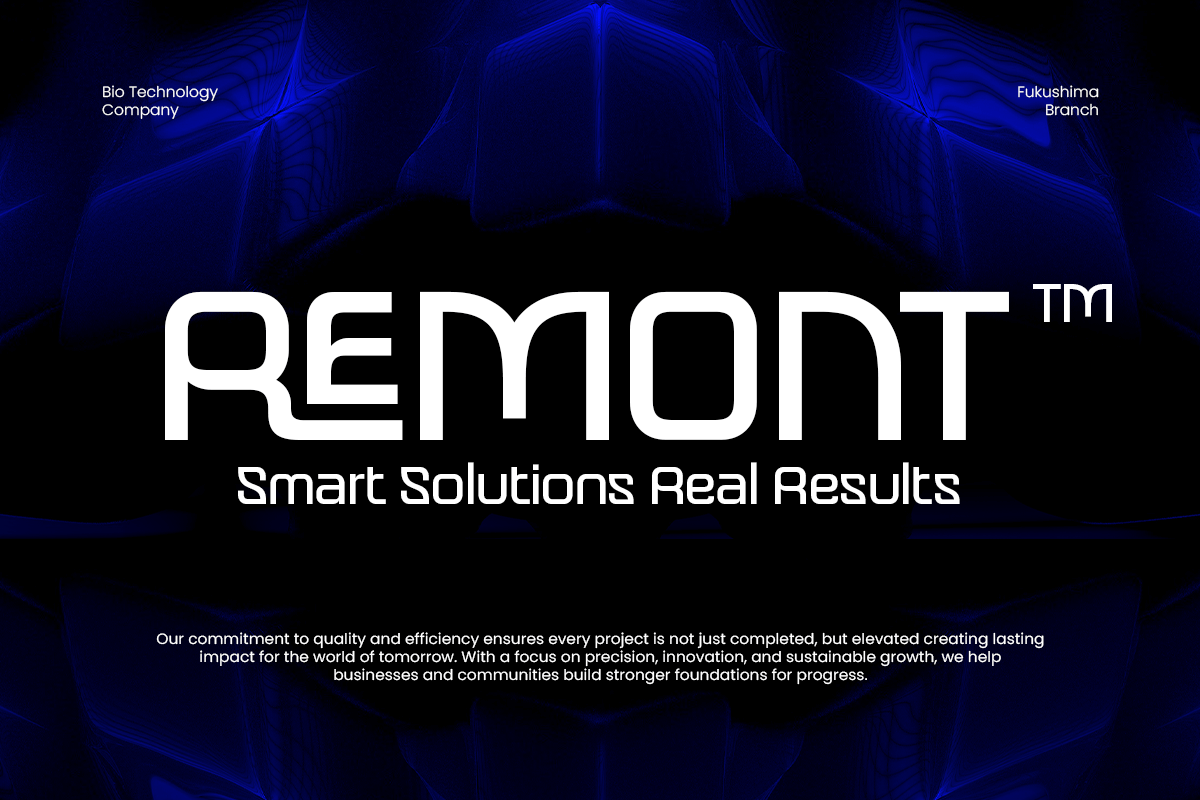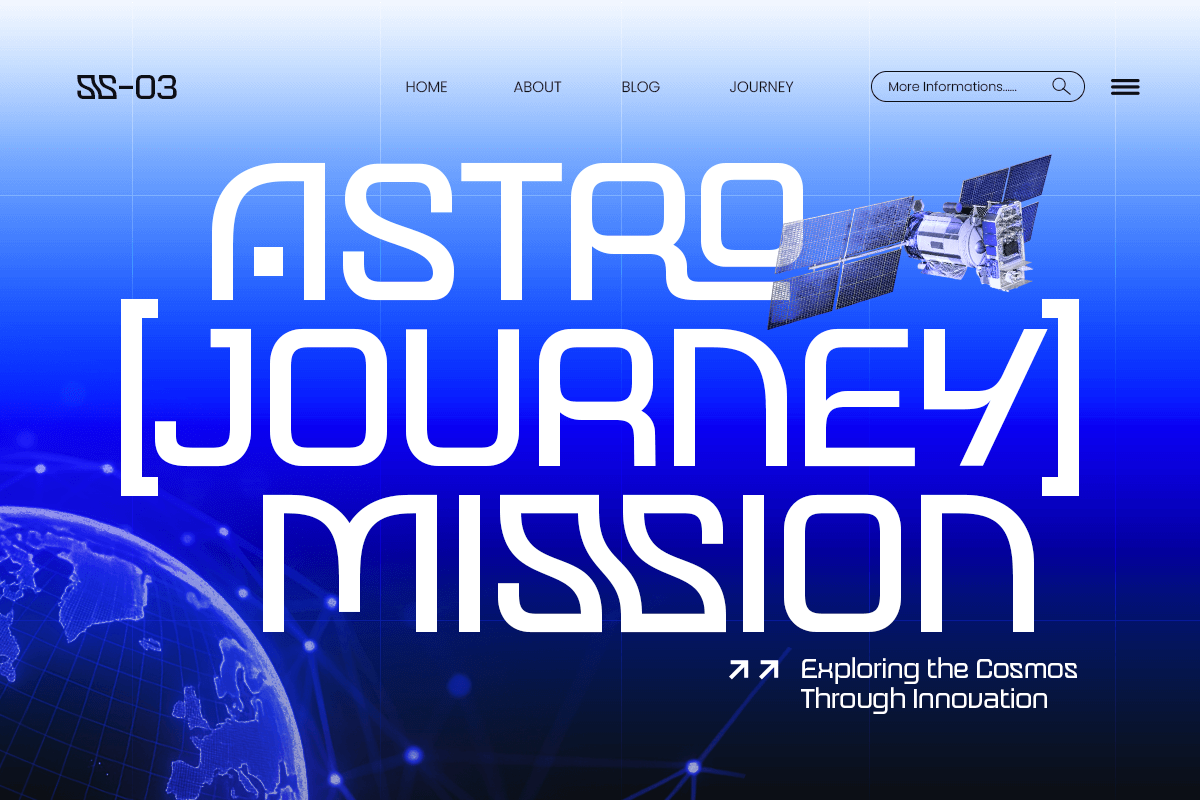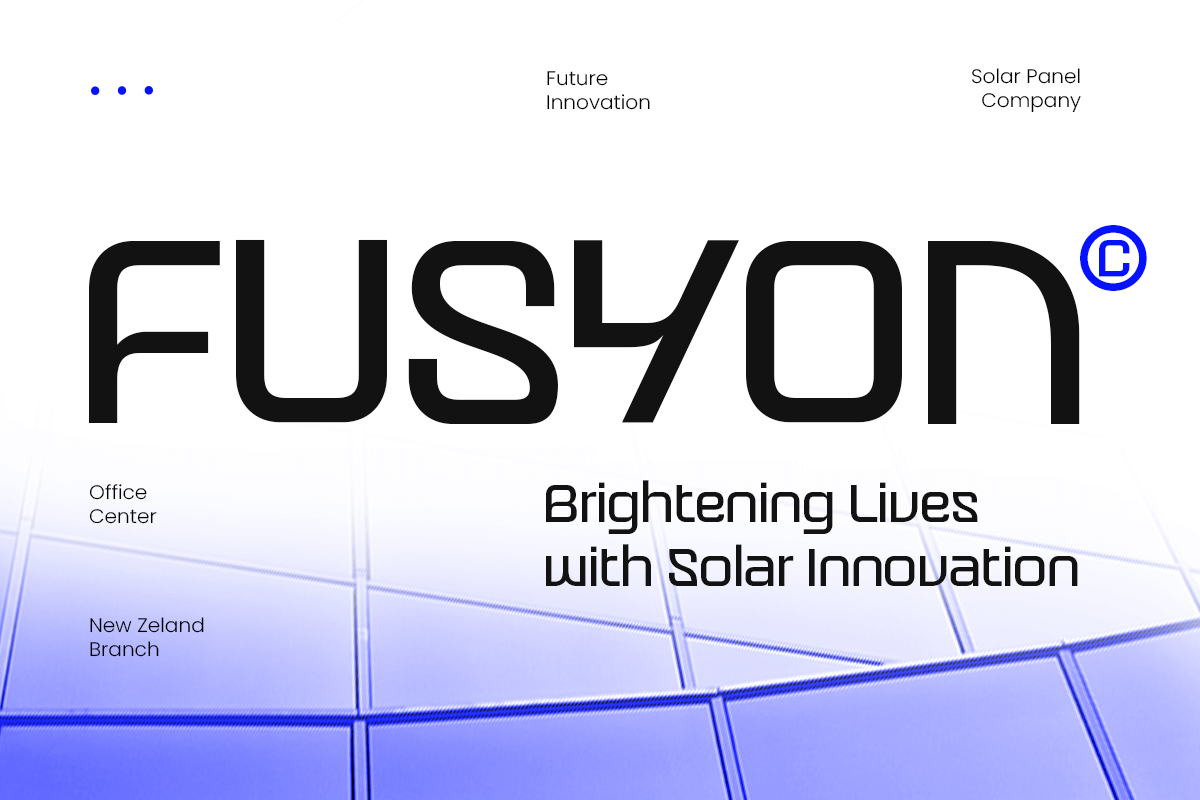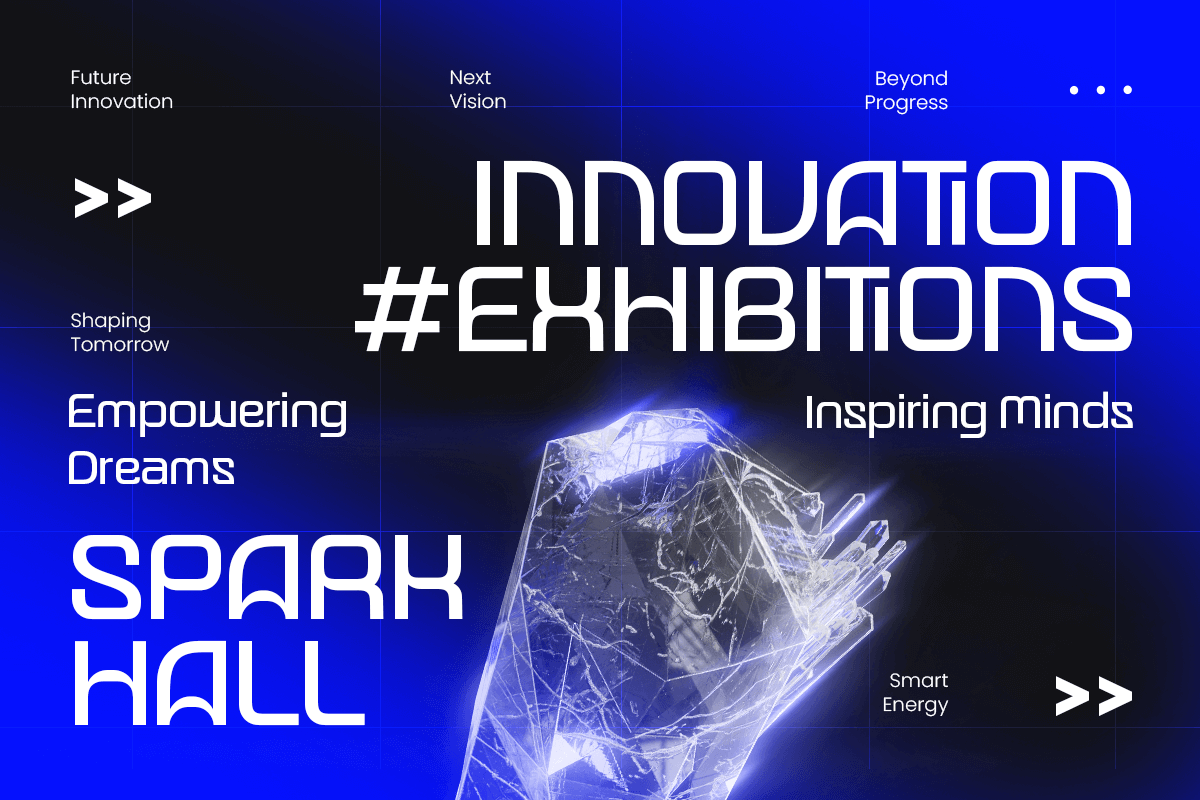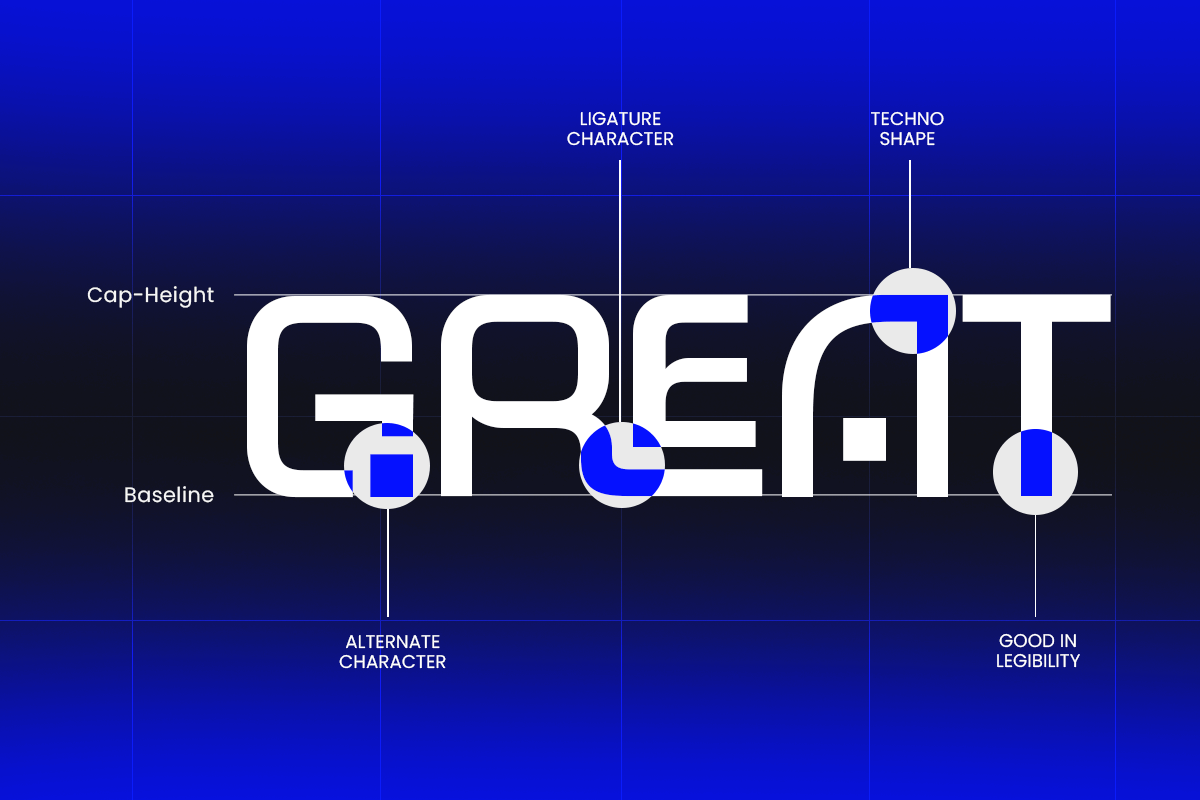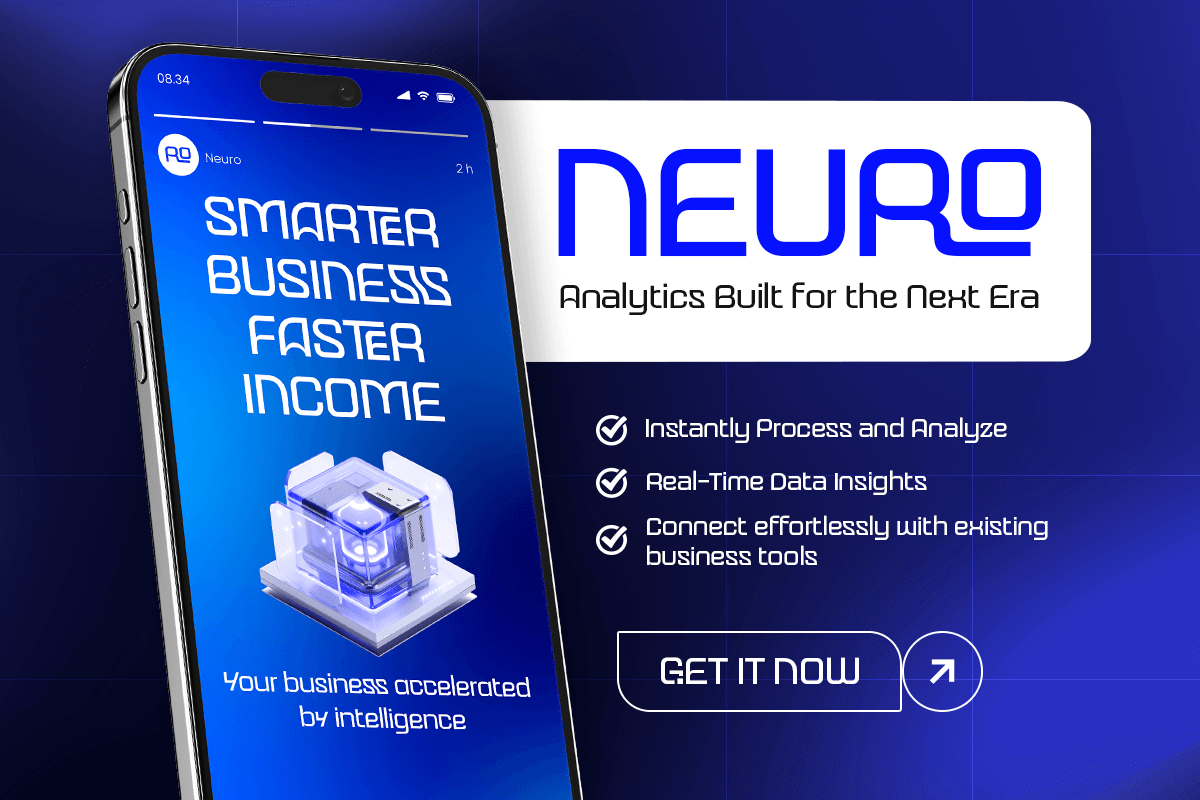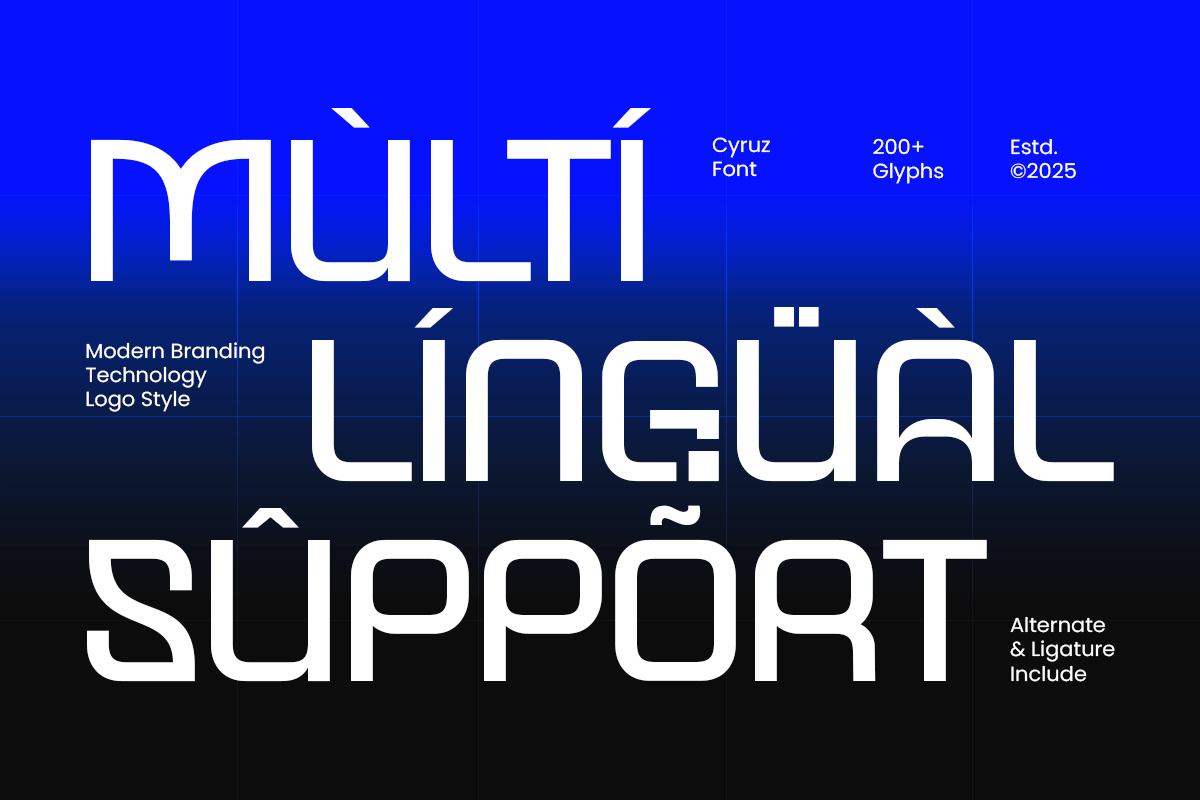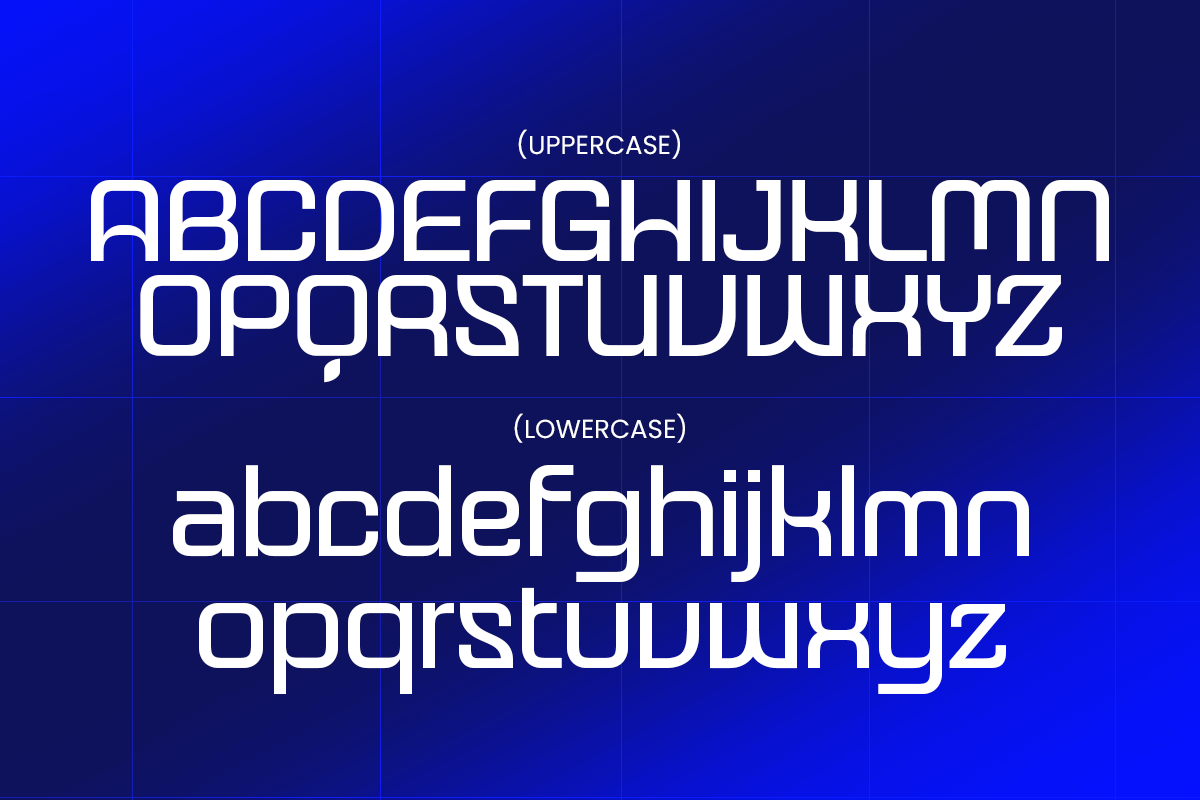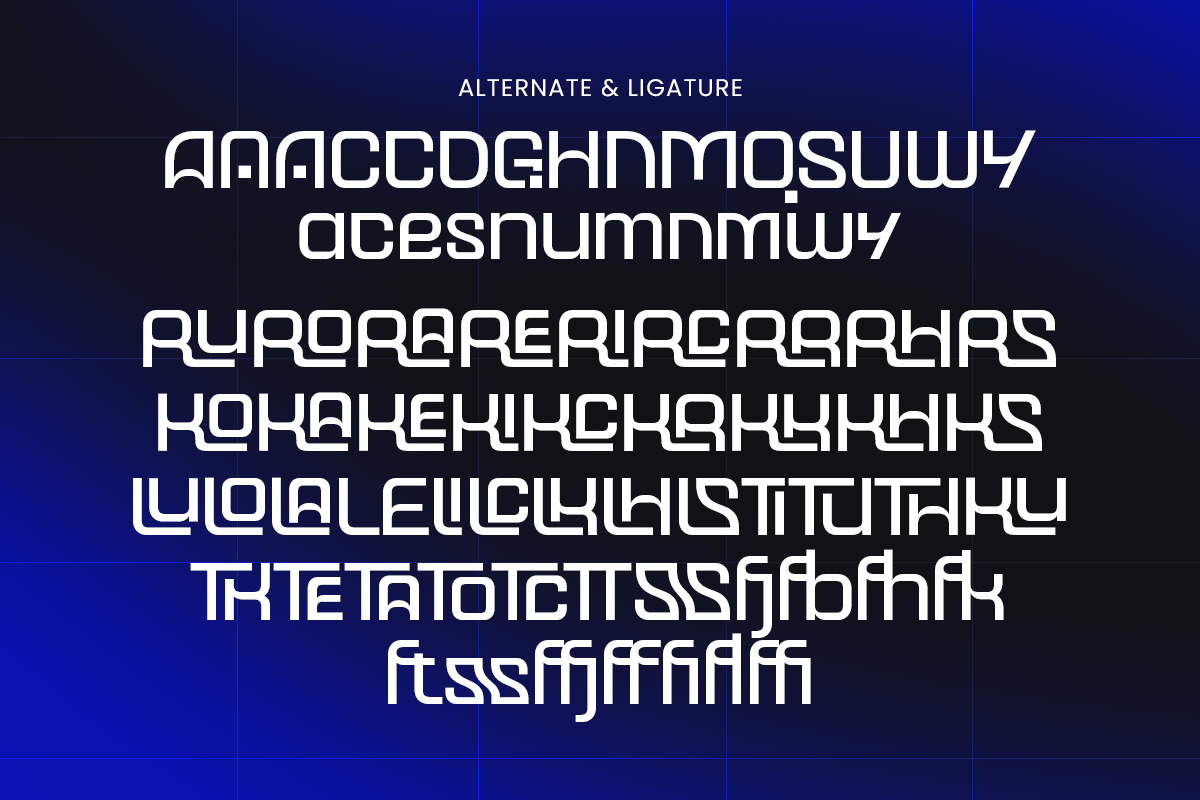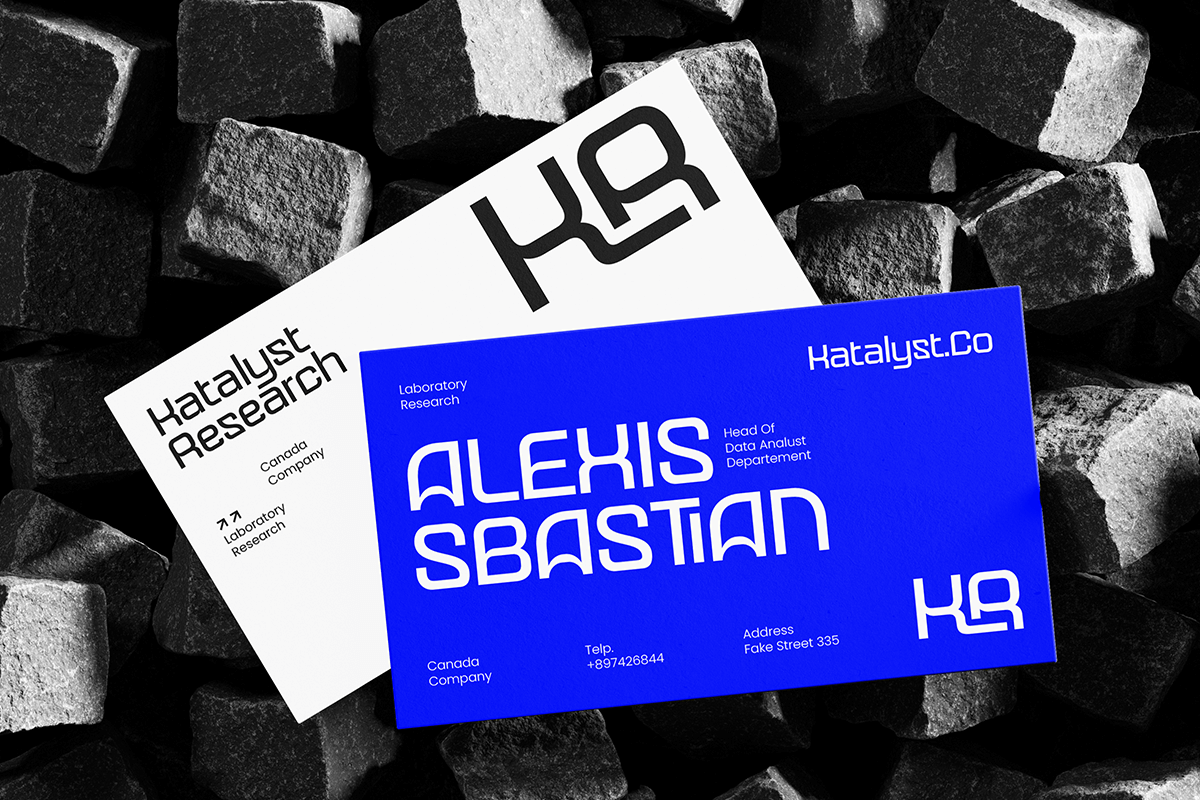
Cyruz - Branding Technology Font
Cyruz – Modern Branding Technology Logo Font
Cyruz is a futuristic and professional display font created for modern technology branding and digital innovation. With clean geometry, smooth curves, and a bold tech-inspired aesthetic, Cyruz brings precision and modernity to any logo or brand identity.
Perfect for startups, software companies, AI technology, and creative digital products, Cyruz combines minimalist design with futuristic detail to deliver a cutting-edge visual style. Its strong structure and consistent proportions make it ideal for high-impact branding, UI design, and promotional materials.
Cyruz – Modern Branding Technology Logo Font Features:
\* Futuristic display style with clean geometric precision
\* Ideal for technology, startup, and digital branding projects
\* Includes uppercase, lowercase, numerals, and punctuation
\* Optimized kerning and OpenType features for flexibility
\* Perfect balance between professional and futuristic design
Define your innovation-driven identity with Cyruz – the modern logo font that blends technology, clarity, and creativity.